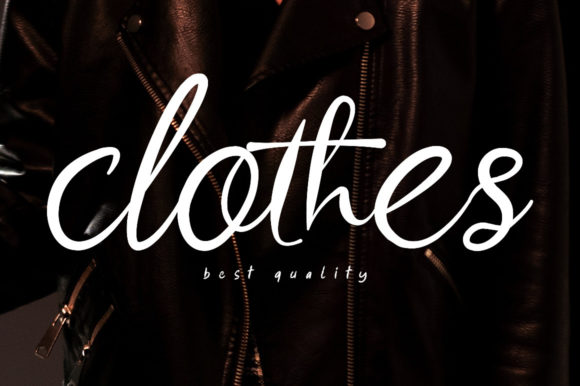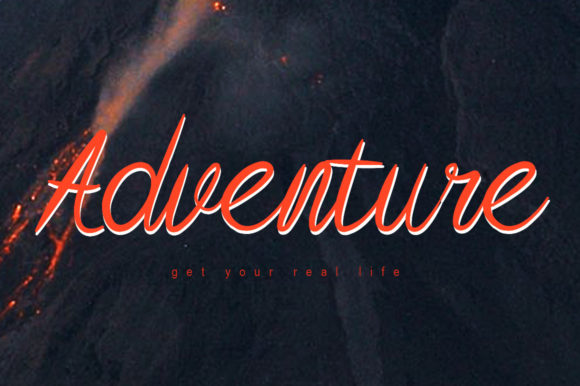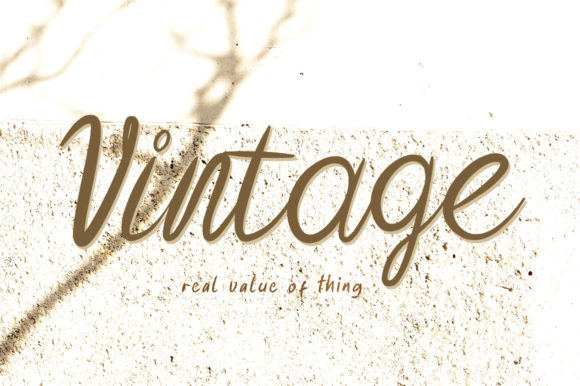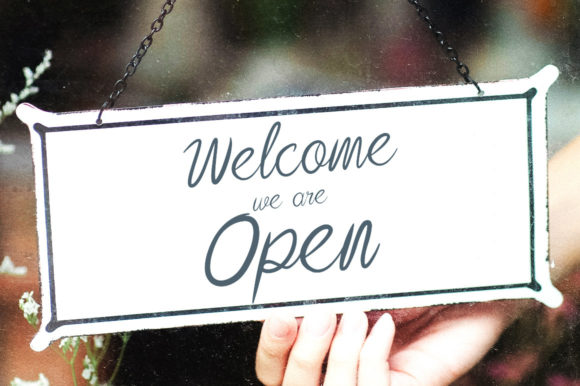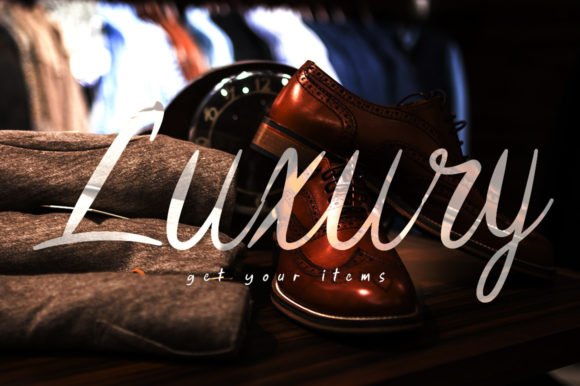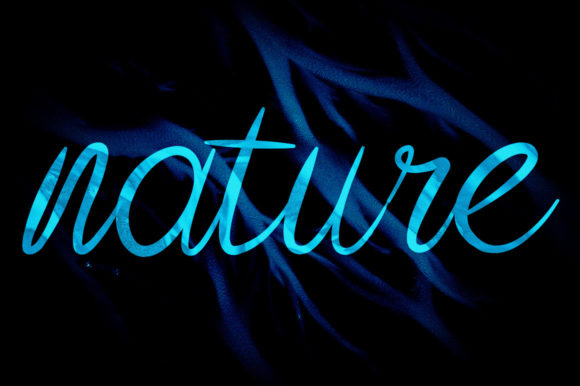
Introduction to Mataram Font
Have you ever stared at a blank canvas, wondering where to begin your next creative project? For designers, this feeling is all too familiar. But sometimes, all it takes is the right font to spark inspiration and set the tone for a masterpiece. That’s where the Mataram Font comes in – a playful and casual script font that’s perfect for adding a touch of elegance to your designs.
Whether you’re working on a logo, invitation, or magazine spread, the Mataram Font is an invaluable resource for designers. Its high-quality design and transparent background make it a versatile choice for a wide range of creative projects. And the best part? It’s available for free download, making it accessible to designers of all levels.
With the Mataram Font, you can create beautiful, high-quality designs that capture the essence of your brand or message. So why settle for ordinary when you can have extraordinary? Dive into the world of the Mataram Font and discover a new level of design excellence.
Key Features of Mataram Font
- High-quality design resource for creative projects, suitable for various applications such as logos, posters, and brochures.
- Unique and elegant design with a transparent background, allowing for easy layering and customization.
- Perfect for designers looking for a sophisticated and modern font to elevate their creative project.
Honest Review: Mataram Font
I recently had the chance to work with the Mataram Font, and I’m excited to share my thoughts on this design resource. As a designer, I’m always on the lookout for high-quality fonts that can elevate my creative projects.
The Mataram Font is a beautiful, elegant script font that works perfectly for titles, headings, and other design elements where you want to add a touch of sophistication. One of the things I appreciate about this font is its transparent background, which makes it easy to use in various design scenarios.
- ✨ High-quality design with smooth lines and elegant curves
- ✨ Perfect for creative projects that require a touch of sophistication
- ⚠️ Limited character set, which may be a concern for designers who need a wide range of characters
- ⚠️ Not suitable for body text, as it can be difficult to read in smaller sizes
Overall, I’m impressed with the Mataram Font. While it may have some limitations, its high-quality design and elegant style make it a great addition to any designer’s toolkit. If you’re looking for a beautiful script font for your creative projects, I would definitely recommend giving the Mataram Font a try.
Mataram Font
Getting the Most Out of Mataram Font
For best results, use the Mataram Font on a high-contrast background to ensure readability. Experiment with different font sizes and styles to create visual interest. You can also pair the Mataram Font with other fonts to create a unique design aesthetic.
The Mataram Font is perfect for use in creative projects, such as logos, brochures, and social media graphics. Its high quality and transparent background make it ideal for use in digital design projects. You can also use the Mataram Font in presentations, reports, and other documents to add a touch of elegance and sophistication.